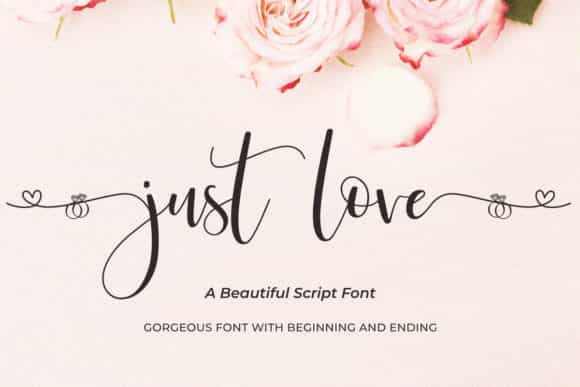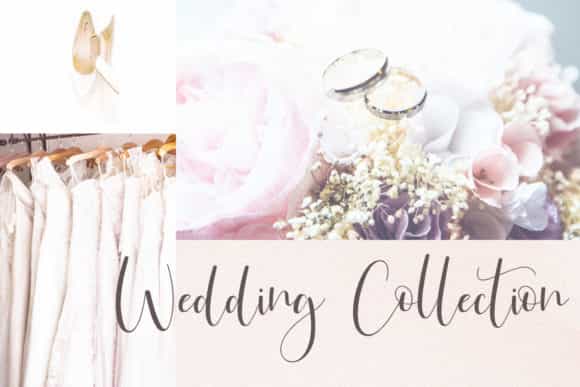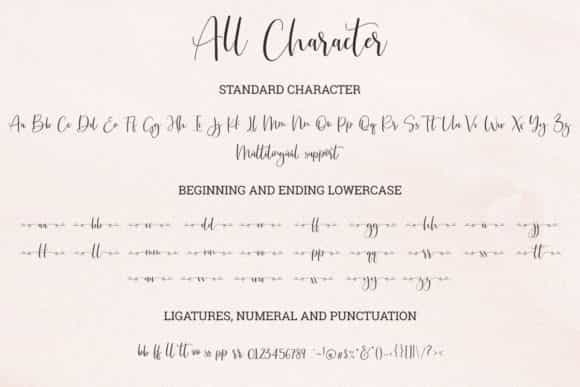
Just Love is a relaxed calligraphy script font with a sweet touch. PUA encoded it has all the glyphs and swashes you wanted! It sports such features as a varying baseline, smooth lines, goreisyph, stunning alternates and beautiful glyphs. Fall in love with its amazing, incredibly versatile style and use it to design exquisite works of art!